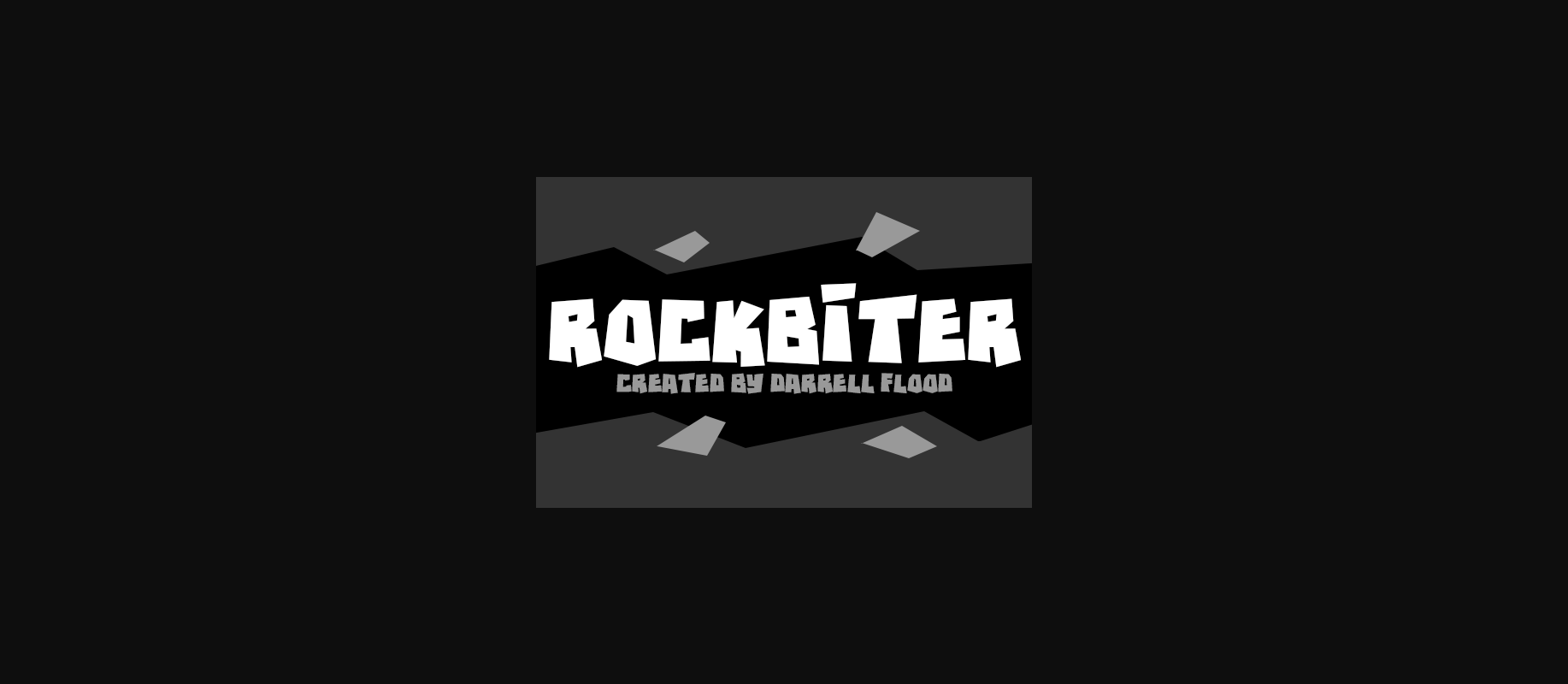
Decorative Fonts Rockbiter Font 0 206 FacebookTwitterPinterestWhatsApp 1 of 1 ... About Rockbiter Font A strong, angular, all caps font. Suitable for fantasy, dungeon and mountain themes. Font created by Darrell Flood. DOWNLOAD NOW